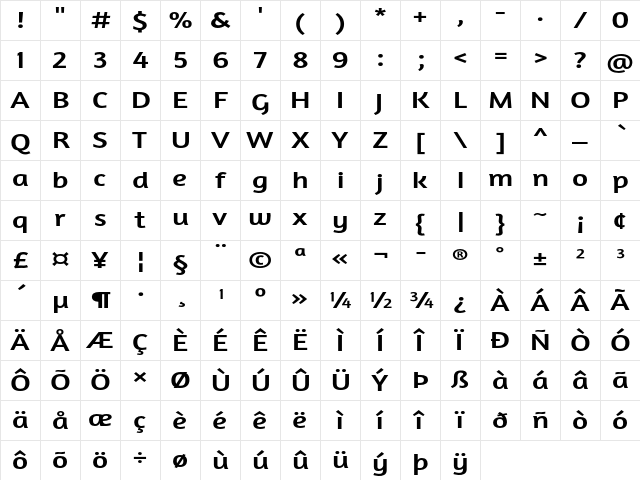
Davidan Expanded Regular
Style: Expanded Regular
Design Context for Davidan
Davidan is a composed and adaptable typeface that performs quietly and consistently across a wide range of design contexts.